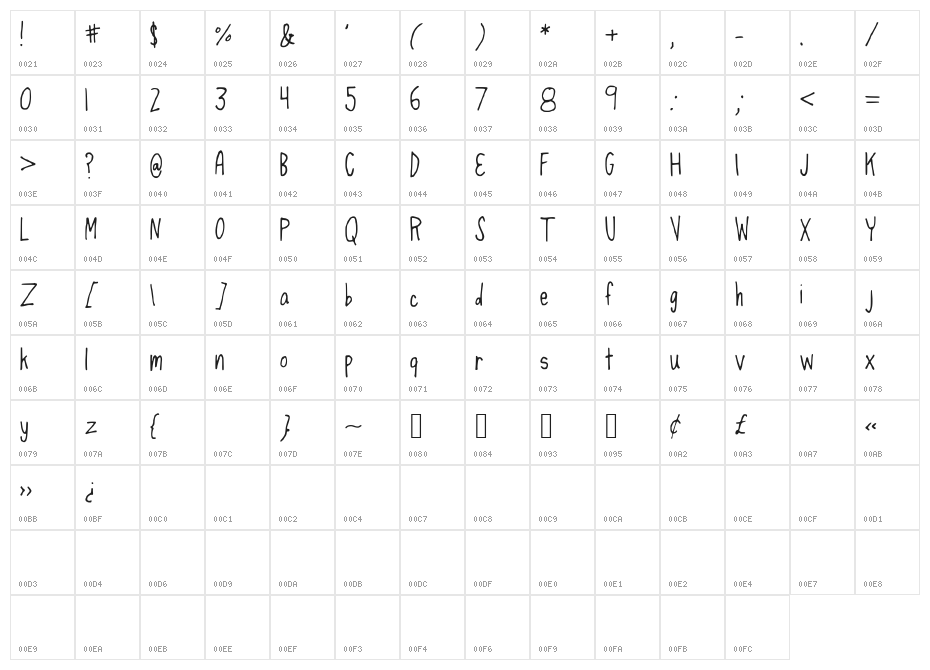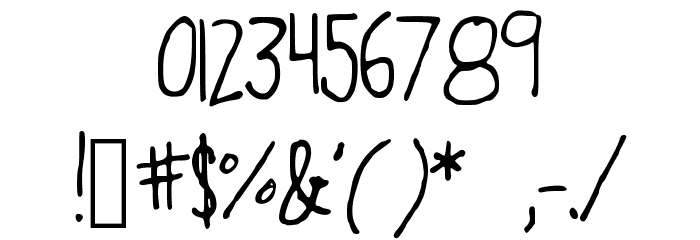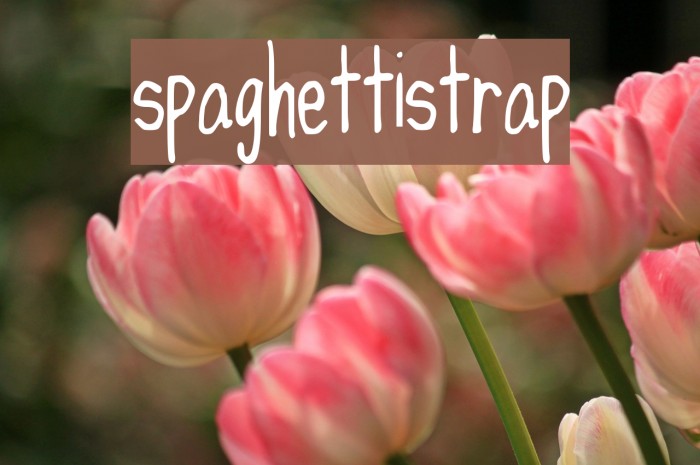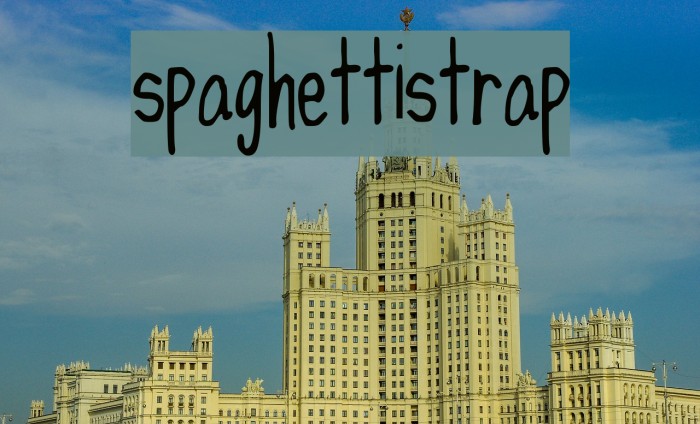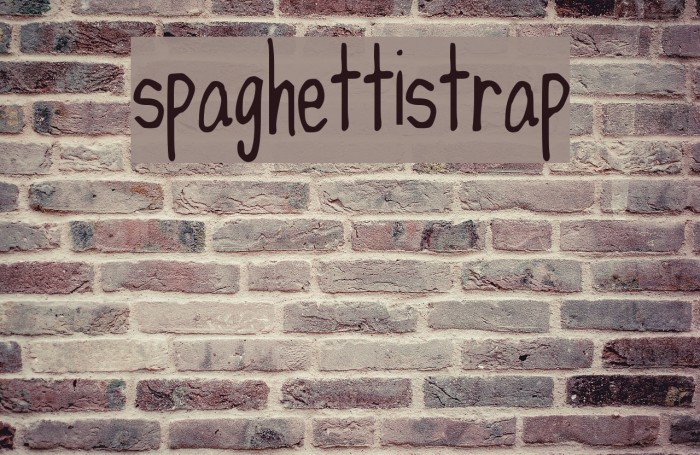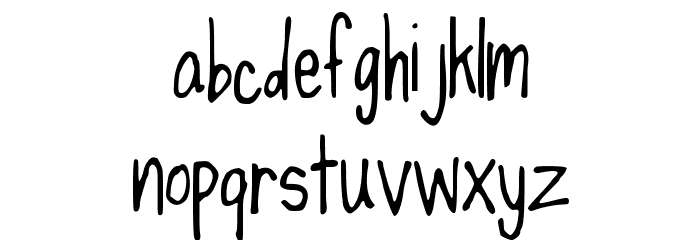
spaghettistrap Font
spaghettistrap Description
This font features a playful and casual handwritten style, characterized by its uneven strokes and slightly irregular letterforms. The uppercase and lowercase letters maintain a consistent flow, giving it a friendly and approachable appearance. The numerals and special characters are crafted with the same informal touch, making them blend seamlessly with the alphabet. The overall design is simple yet expressive, capturing the essence of hand-drawn text with a modern twist. Its legibility and charm make it suitable for a variety of creative projects.
SPAGHETTISTRAP UPPERCASE
SPAGHETTISTRAP LOWERCASE
SPAGHETTISTRAP OTHER CHARS